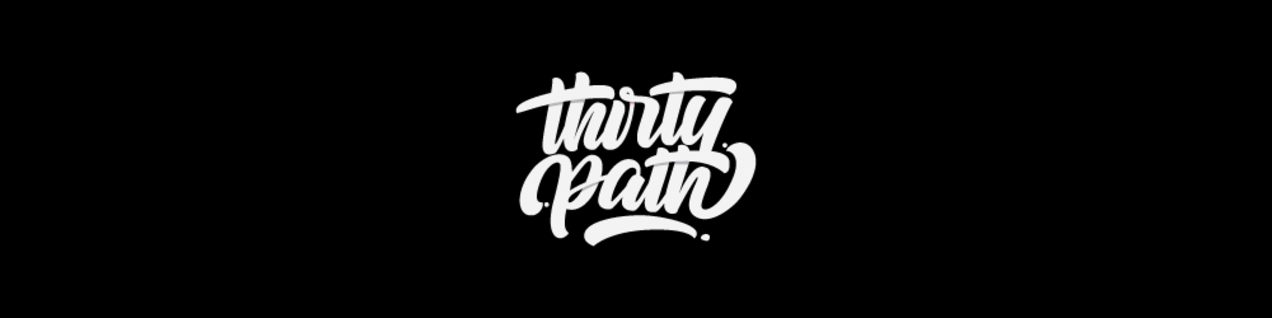
Thirtypath Studio
Thirtypath Studio is an independent type foundry dedicated to the craft of display and expressive typography. Rooted in a design philosophy that treats letterforms as carriers of feeling, the studio approaches each typeface as an emotional artifact — shaped not only by visual logic, but by mood, atmosphere, and intention.
The foundry operates at the intersection of typographic precision and expressive freedom, producing typefaces that give graphic designers and visual creatives a distinct voice on the page and screen. Every release is the product of a deliberate, considered process — one that moves from concept to form with attention to the tension between structure and feeling that defines compelling display type.
Thirtypath Studio believes that typography is more than a functional tool. At its best, it carries weight, texture, and character that transforms a design from competent to resonant. That conviction drives every design decision made under the studio's name.
The work is built for designers who demand more than utility — who seek type with personality, presence, and purpose.